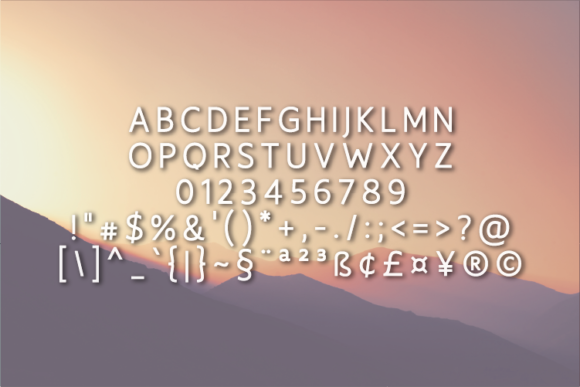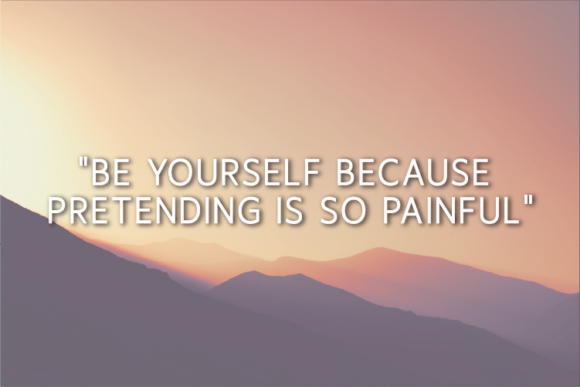
Introduction to Lovelity Font
Have you ever found yourself staring at a blank page, desperately seeking the perfect font to bring your creative project to life? For designers, this moment is all too familiar. It’s a moment of frustration, followed by a deep breath, and the search for that elusive perfect font. But what if we told you that your search is over? Enter Lovelity Font, a stunning sans serif font that’s sure to become your go-to design resource.
Lovelity Font is more than just a pretty face – it’s a high-quality design element that’s perfect for a wide range of creative projects. From free downloads to professional designs, this font is sure to elevate your work and make it stand out from the crowd. With its transparent background and clean, elegant style, Lovelity Font is the perfect choice for designers who demand the best.
Key Features of Lovelity Font
- High-quality design: Lovelity Font is a professional and elegant font suitable for various creative projects, including logos, branding, and marketing materials.
- Perfect for creative projects: The font’s unique characteristics and elegant design make it an ideal choice for creative projects, including digital art, graphic design, and typography.
Honest Review: Lovelity Font
I recently stumbled upon the Lovelity Font and I must say it’s been a game-changer for my creative projects. The font is a high-quality design resource that can elevate any project to the next level.
- ✨ High-quality design that’s perfect for any creative project.
- ✨ Transparent background, making it easy to work with.
- ⚠️ Limited character set, which can be a problem if you need a wide range of characters.
Overall, I’m really impressed with the Lovelity Font. It’s a fantastic design resource that can add a touch of elegance to any project. If you’re looking for a high-quality font for your creative project, I highly recommend giving it a try.
The Lovelity Font is perfect for use in a variety of creative projects, including:
- Document design
Alternatives to Lovelity Font
The Great Vibes Font is a beautiful, elegant script font that’s perfect for creative projects that require a touch of sophistication. It’s ideal for wedding invitations, birthday cards, and other special occasions. When to use: weddings, special occasions, formal events. How it compares to Lovelity Font: While Lovelity Font has a more playful feel, Great Vibes Font is more refined and elegant.
The Alex Brush Font is a high-quality script font that’s great for designers looking for a elegant, handwritten feel. It’s perfect for logos, branding, and other design projects that require a personal touch. When to use: logos, branding, personal projects. How it compares to Lovelity Font: Alex Brush Font is more polished and refined than Lovelity Font, making it ideal for professional design projects.